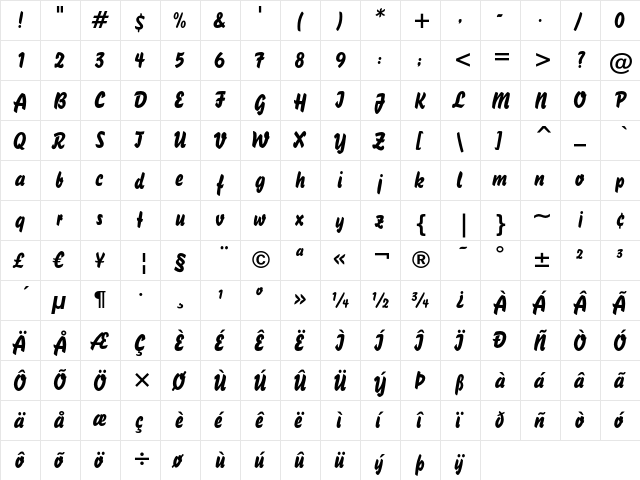
Brush 738 Regular
Design Context for Brush 738 Typeface
Brush 738 brings a calligraphic fluidity to the page — its connecting strokes and expressive curves give it an unmistakably human quality.
Font Pairing: Combine Brush 738 with a simple geometric sans for maximum contrast — the tension between flowing curves and clean structure is a classic typographic pairing.
Pro Tip: Pair Brush 738 with a clean sans-serif for supporting text. The contrast between fluid script and geometric structure creates an elegant typographic hierarchy.